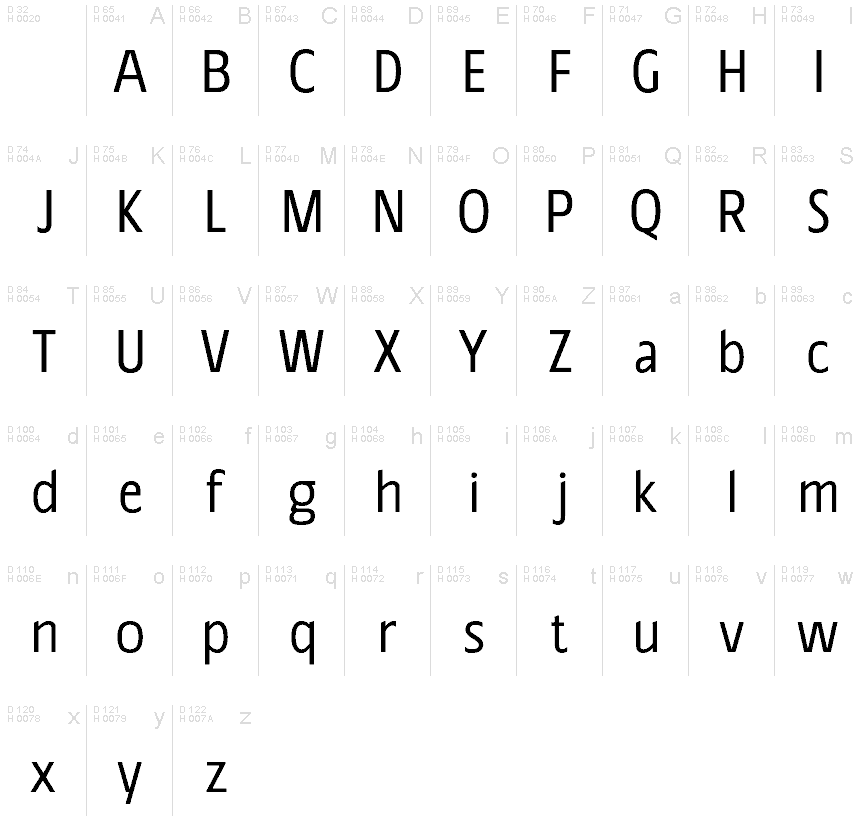
CS Holver Regular Demo
CS Holver font by Craft Supply Co. is a minimalist and modern sans-serif free font with clean, professional visuals. Its condensed design aids in saving space, and the presence of thin wight variations make it a suitable choice for special or documental typography needs where readability takes priority.
The typeface can be used in annual reports, book cover designs, various web design elements, cards (business or invitation), academic presentations (research paper inserts), resumes/CVs, magazines and newspapers’ headlines/subheadings etc.